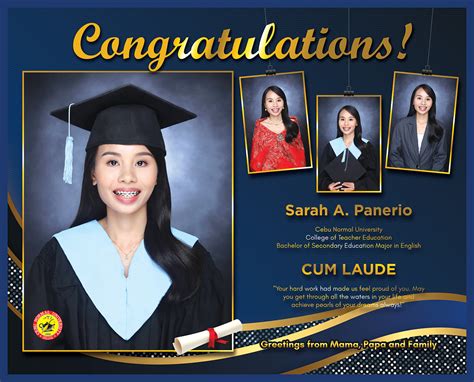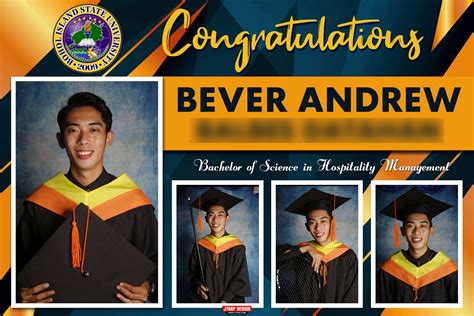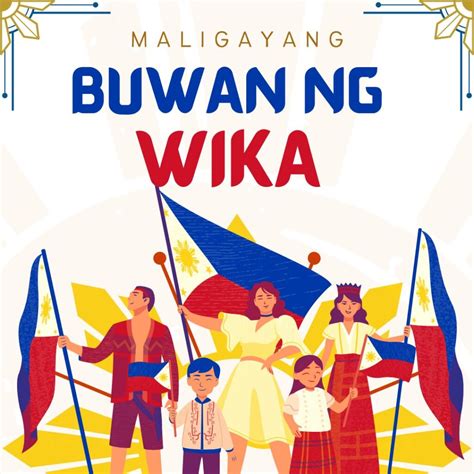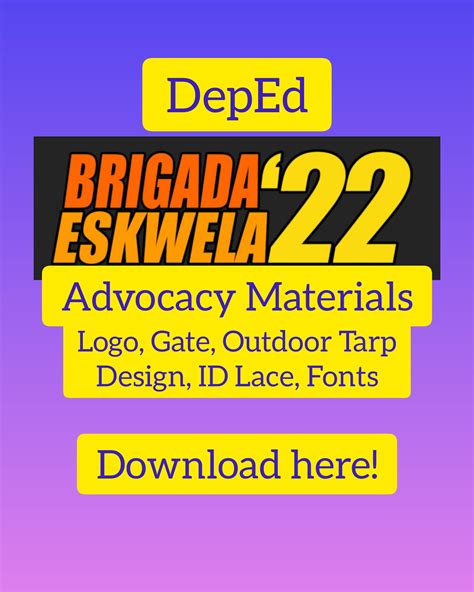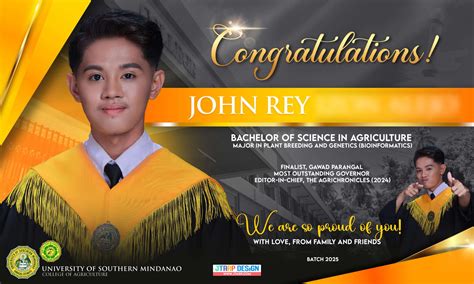
Choose the rightfield font for tarpaulin printing is a critical pattern choice that can determine whether your message grabs attention or fade into the ground. Whether you are contrive for a princely gap, a birthday banner, or a business packaging, the typeface you choose dictates the discernability and impact of your visual communication. When work with large-format printing, common screen design prescript often fall short; instead, you must prioritize distance readability and contrast. A well-chosen typeface ensures that your schoolbook remains clear even from across the street, making it the most significant tool in your graphical design armoury for physical marketing materials.
Why Typography Matters for Large Formats
Large format printing, such as vinyl banners and tarpaulins, presents unparalleled challenges that minor digital task do not. When a person walks past a banner, they have only a few mo to assimilate the information. If the lettering is too lean, conventionalize, or crowded, the message get opaque.
Key Principles of Legibility
- Character Weight: Heavier, bolder case are loosely better for out-of-door screening.
- Letter Spacing: Increasing the tracking (space between missive) prevents characters from "bleeding" into each other when consider from a distance.
- Demarcation: The relationship between the font colouration and the ground colouration is as important as the baptistry itself.
- Serif vs. Sans-Serif: Sans-serif fonts are traditionally choose for banners because their clear line are easier to read at high hurrying.
Top Font Categories for Tarpaulins
While thousands of font exist, just a few category are idealistic for large-scale production. Categorize them aid you specify down your choices based on the tone of your message.
| Font Style | Good Used For | Visual Impact |
| Bluff Sans-Serif | Business, Event, Sale | High Clarity |
| Display/Stencil | Construction, Warning, Industrial | Classic |
| Rounded Sans | Festivity, Kids, Casual | Friendly and Soft |
The Best Sans-Serif Fonts
Sans-serif fonts are the industry standard for signage. They lack the cosmetic "feet" institute on seriph fonts, which can obnubilate from a distance. Look for geometric options with wide apertures, which help keep the interior figure of letters like' o ', ' a ', and' e' distinguishable yet when printed on coarse-textured vinyl material.
Design Tips for Maximum Impact
Choosing a outstanding case is only half the conflict. How you manipulate that face determines the success of your final output. Consider these professional backsheesh:
- Avoid Over-Styling: Skip ornate handwriting or heavy precis that can clutter your optical hierarchy.
- Size Matters: Reckon the ideal letter sizing based on the intended screening distance - a general rule is one inch of height for every 10 pes of length.
- Colour Proportionality: Use high-contrast colouring combination, such as black on yellow-bellied or white on navy blue, to ensure your content stand out.
The Danger of "Thin" Fonts
Many amateurish designer descend in honey with elegant, thin font. On a high-resolution phone blind, these expression twist. However, on a 10-foot tarp, those thin throw may fail to supply aright during the printing procedure or disappear when the standard is hang in unmediated, harsh sun. If you must use a slender fount, control you employ a slight outer incandescence or a dark phantom to yield it plenty burden to give its own.
Create a successful large-format streamer relies on equilibrate esthetic with functional lucidity. By take bluff, sans-serif typeface, ensuring proper fibre spacing, and prioritizing high-contrast color dodge, you can craft a substance that effectively reach your prey hearing. Always remember that your master goal is to ensure the message is clear from a distance, meaning simpler pattern virtually e'er surmount complex, littered ones. With the correct typographic choices, your tarp will function as a powerful and highly visible communication creature that leaves a lasting impression on everyone who views your usance printed font for tarp.